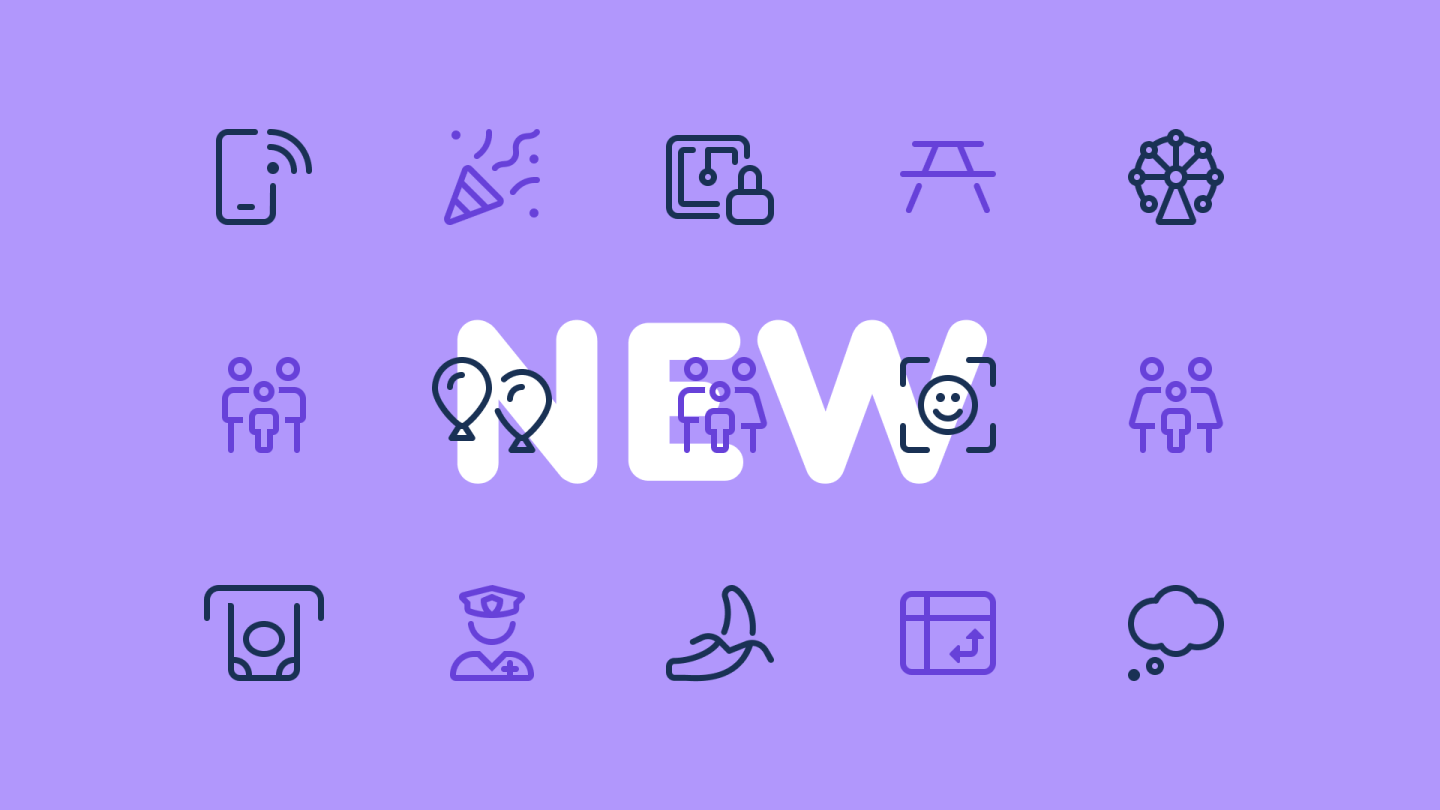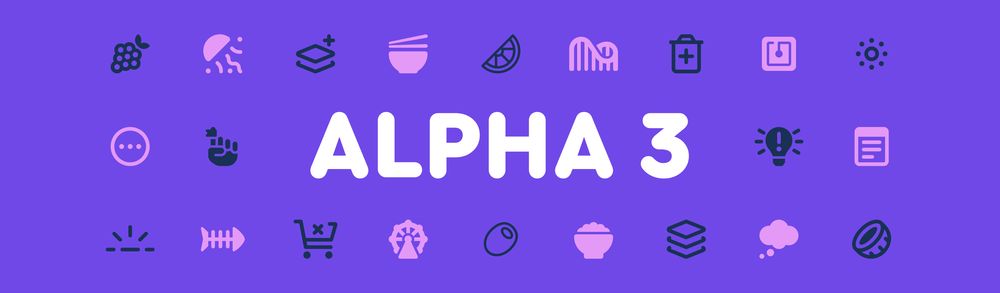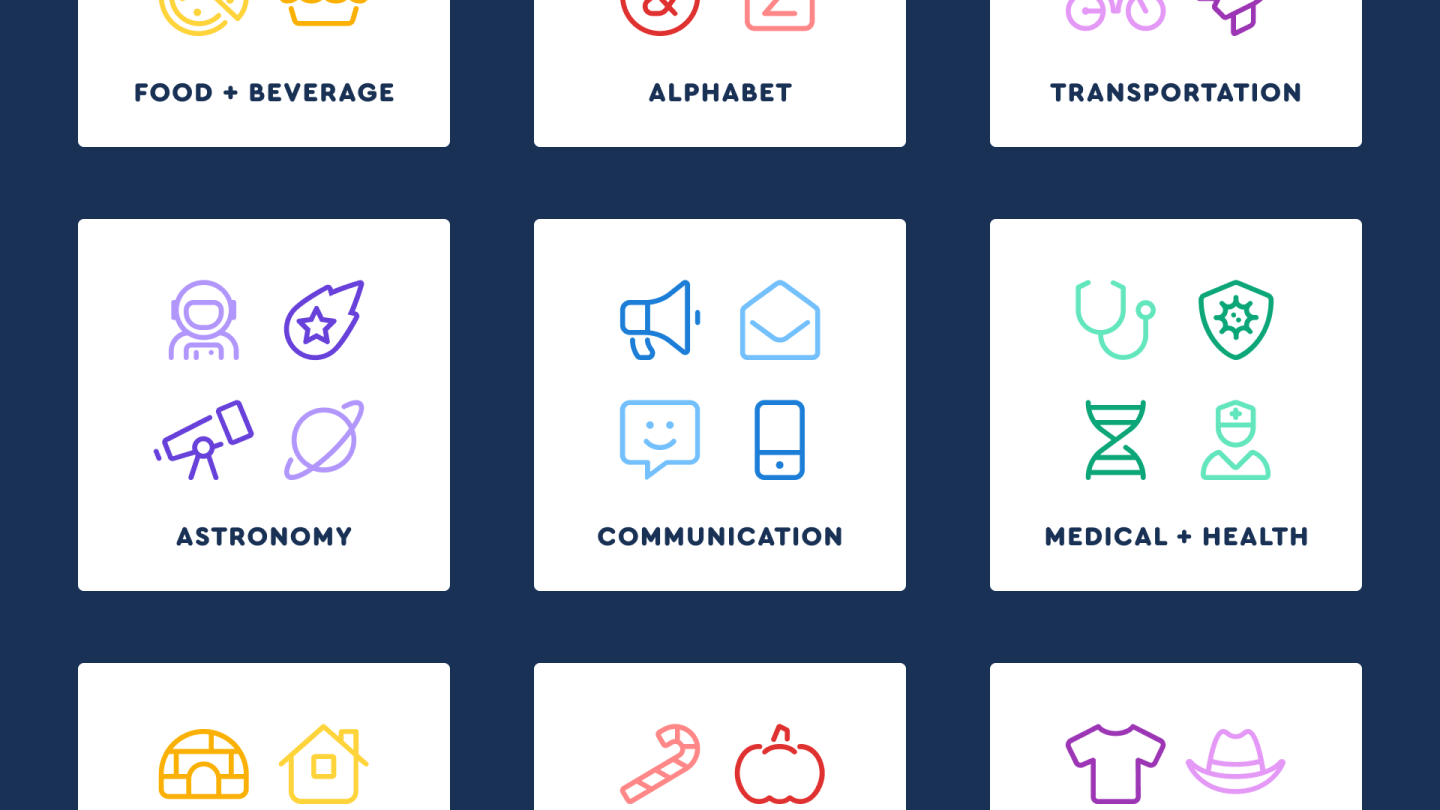
Font Awesome 6’s third Alpha release is out now! Along with more fine-tuning and fixes, we’ve added a few goodies and of course more icons.
With the release of Alpha 3, Font Awesome 6 now has 500+ all-new icons and 2,500+ icons in each of our 5 styles (including the new kid on the block, Thin). In this release, we’ve added more commissioned icons, more top community requests, and took another pass on many of our existing icons to add more pixel polish.
In Alpha 2, we made a bunch of improvements to our Styling Toolkit that takes the trouble out of sizing, rotating, stacking, and plain old using icons on the web. And as part of that work, we made our fa-spin flexible and customizable. But like our infinitely spinning icons, we couldn’t stop there…
We’ve added 4 additional animations that can be paired to any of our thousands of icons on the web. Make your fa-heart
skip a beat with the all-new fa-beat
. Make sure to warn someone of that fa-flask-round-poison
with our fa-fade
or fa-flash
animations. And flip your favorite record or cassette, cameras, checks to be scanned, and even the fa-script
using our new fa-flip
animation. As with fa-spin
, these new animations are packed with easy customization via CSS Custom Properties. Oh, and they all play well from an accessibility perspective thanks to our new use of the prefers-reduced-motion media query.
We’ve prepped for some fun things to come by cleaning up the metadata around our icons. We’ve added a bunch of new search terms to make finding the right icon even easier. And we’ve revised all of our icon categories so that they’re balanced in both subject matter and icon counts.
You’ll also find a bunch of smaller tweaks and tightening of bolts with this pre-release. In our future Alphas and Betas, we’ll be focusing on other aspects of Version 6. And of course, we’ll be making things better with your feedback (thanks in advance) along the way.